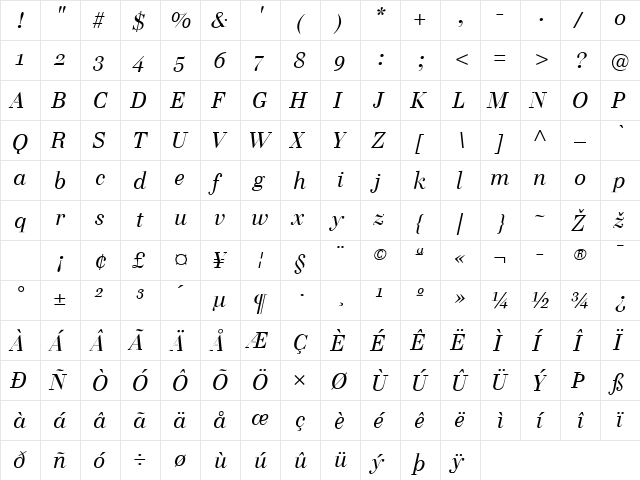
CelliniTitling-Italic Regular
| Foundry | Albert Boton, published by FontShop International for the FontFont Library |
| Designer | Albert Boton |
Design Context for CelliniTitling-Italic Typeface
CelliniTitling-Italic offers clean, dependable letterforms without strong stylistic allegiance, making it a practical choice for designers who need flexibility. The slanted form adds forward momentum and visual energy.
Pro Tip: Try CelliniTitling-Italic for annotation and caption copy alongside an upright companion — the contrast in angle creates a dynamic but ordered typographic system.